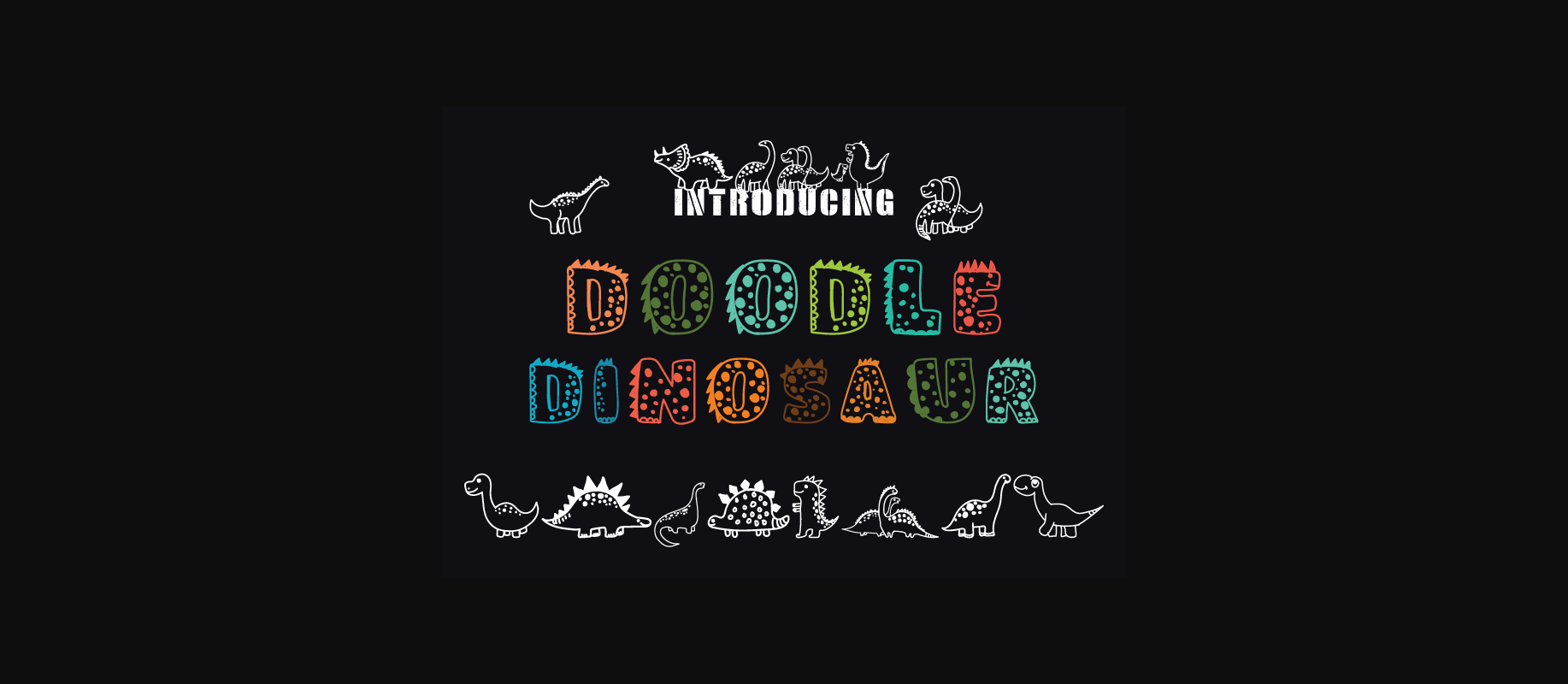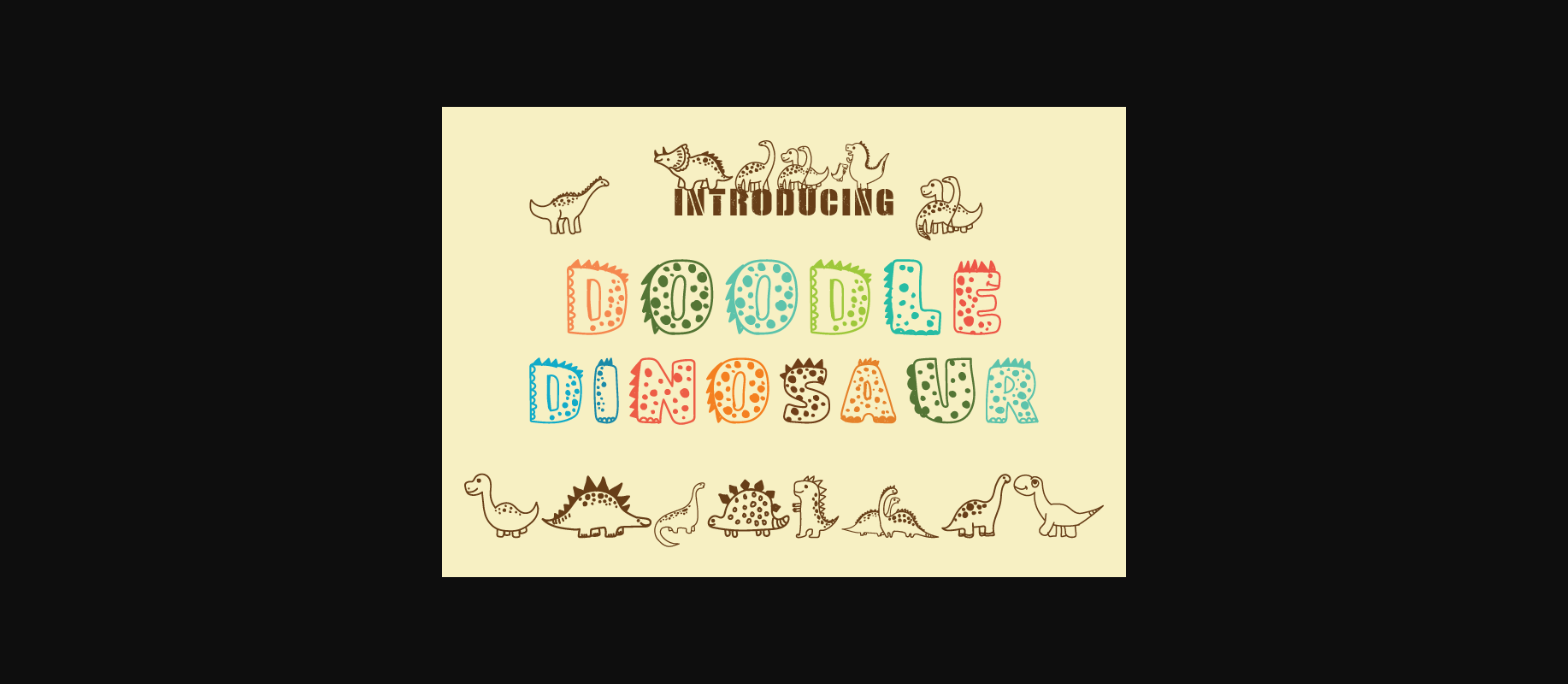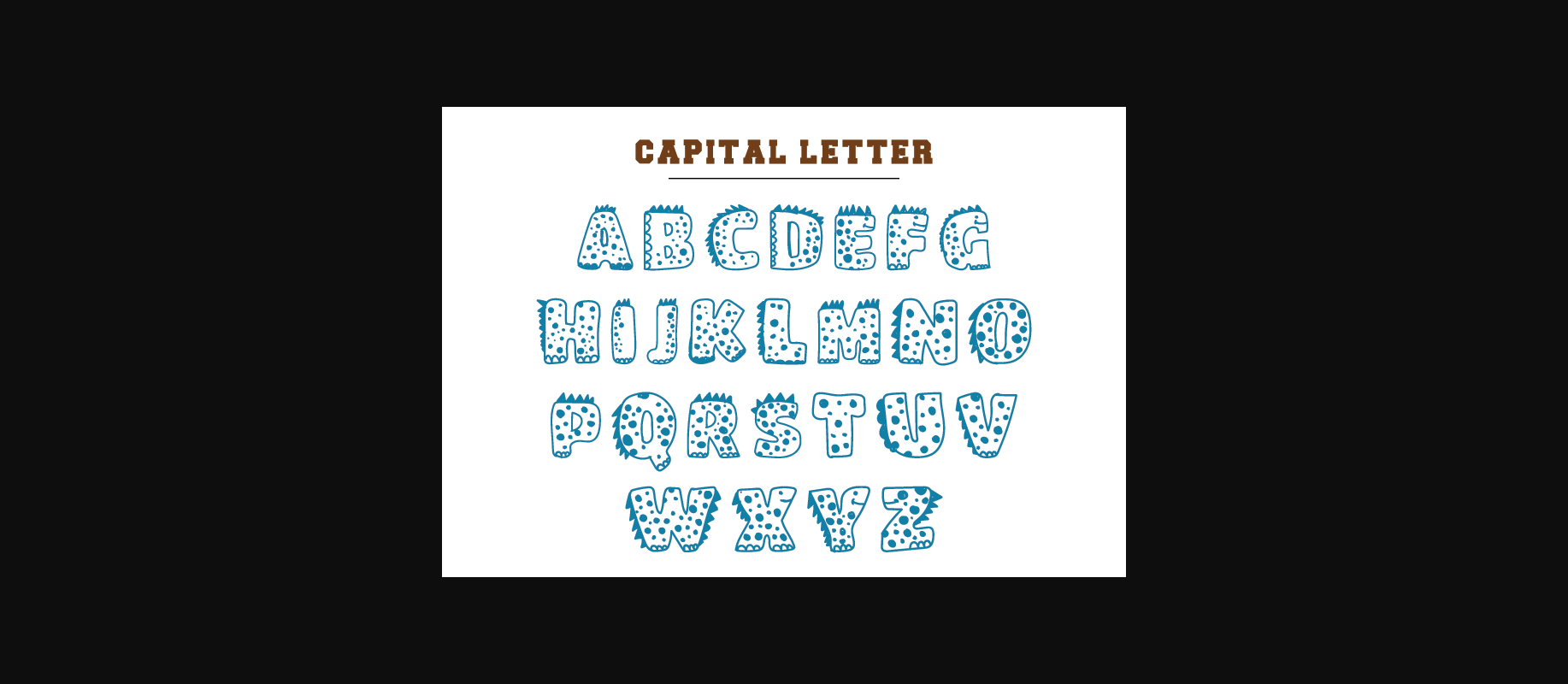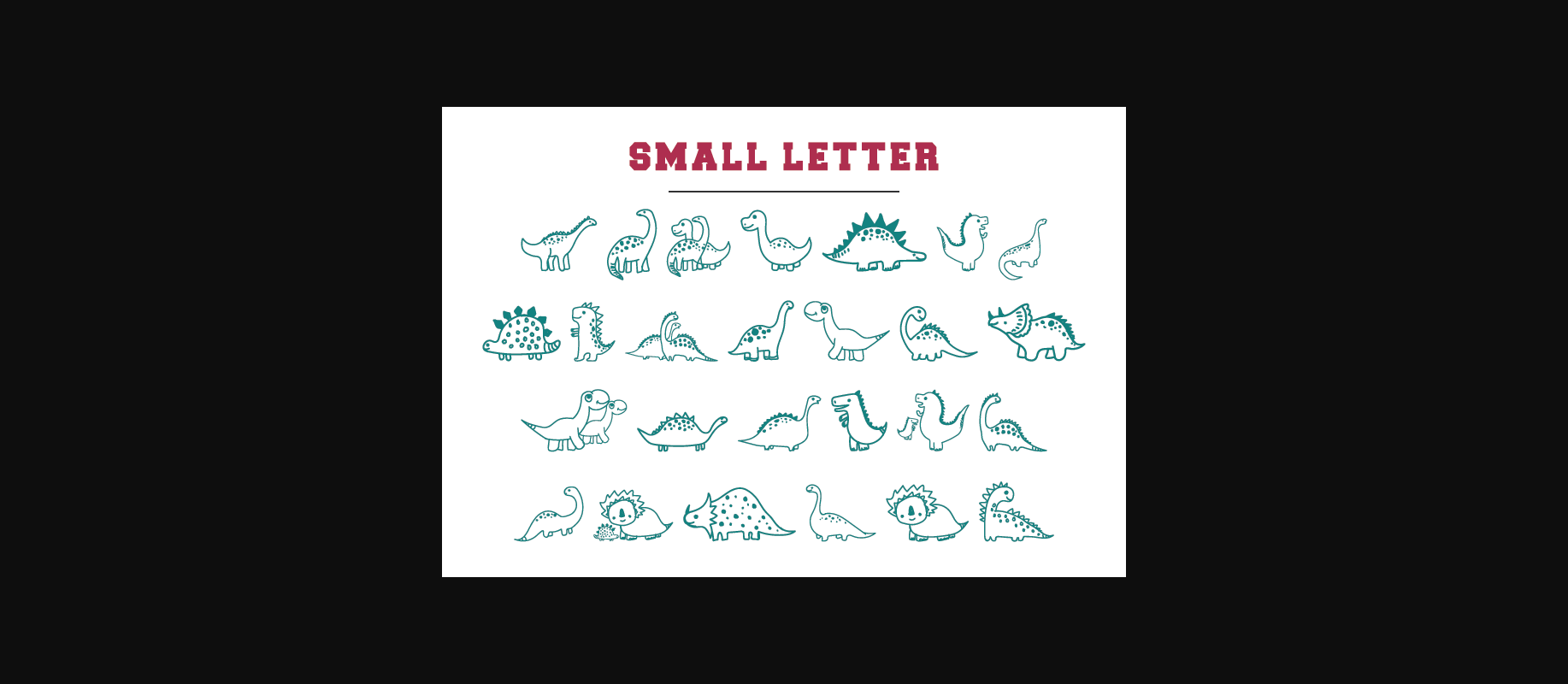
Doodle Dinosaur Font
About Doodle Dinosaur Font
Doodle Dinosaur is a charming decorative font that adds a playful touch to your designs. Each letter is adorned with Dinosaur Text and Character prints, making it perfect for Dinosaur lovers and whimsical projects.